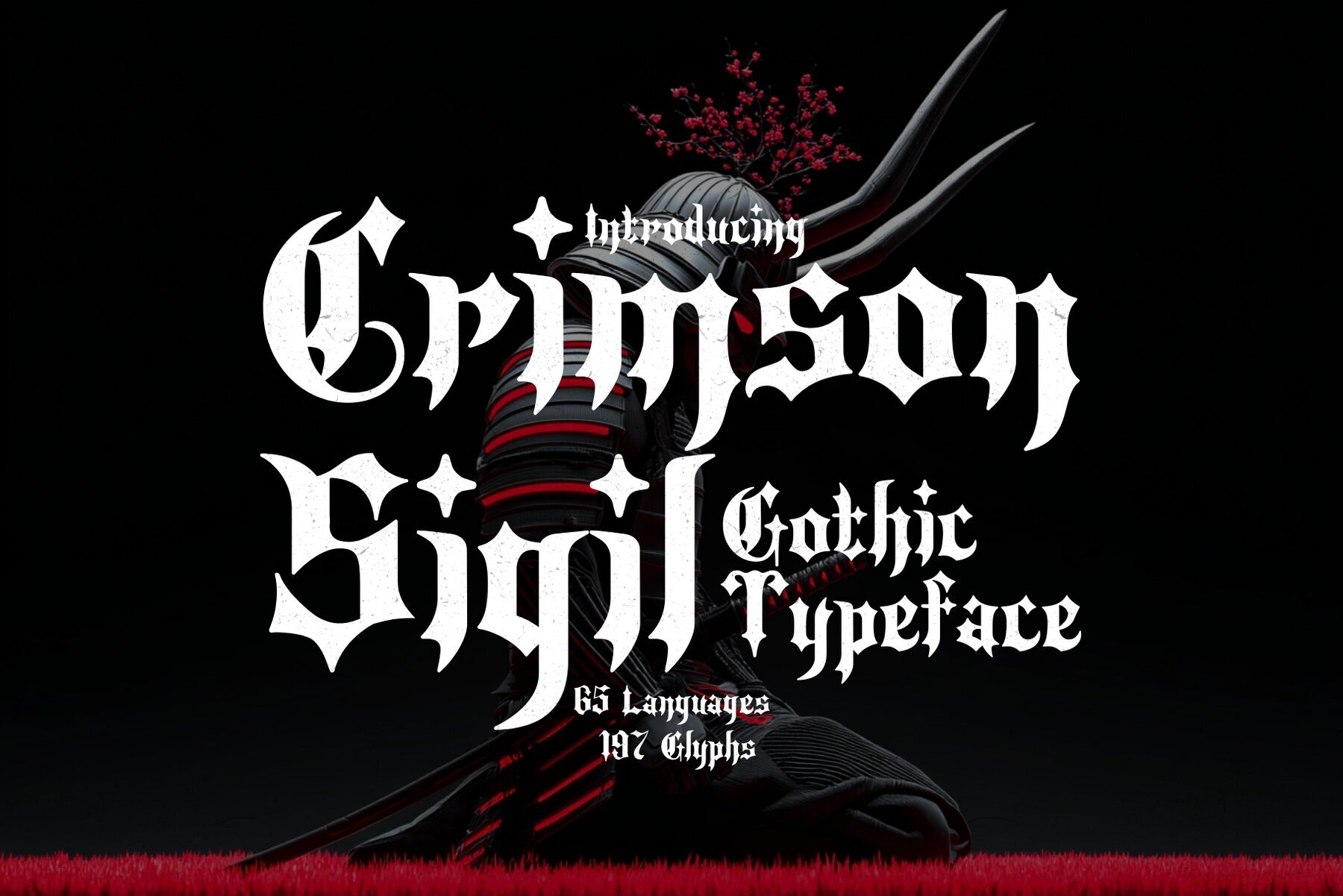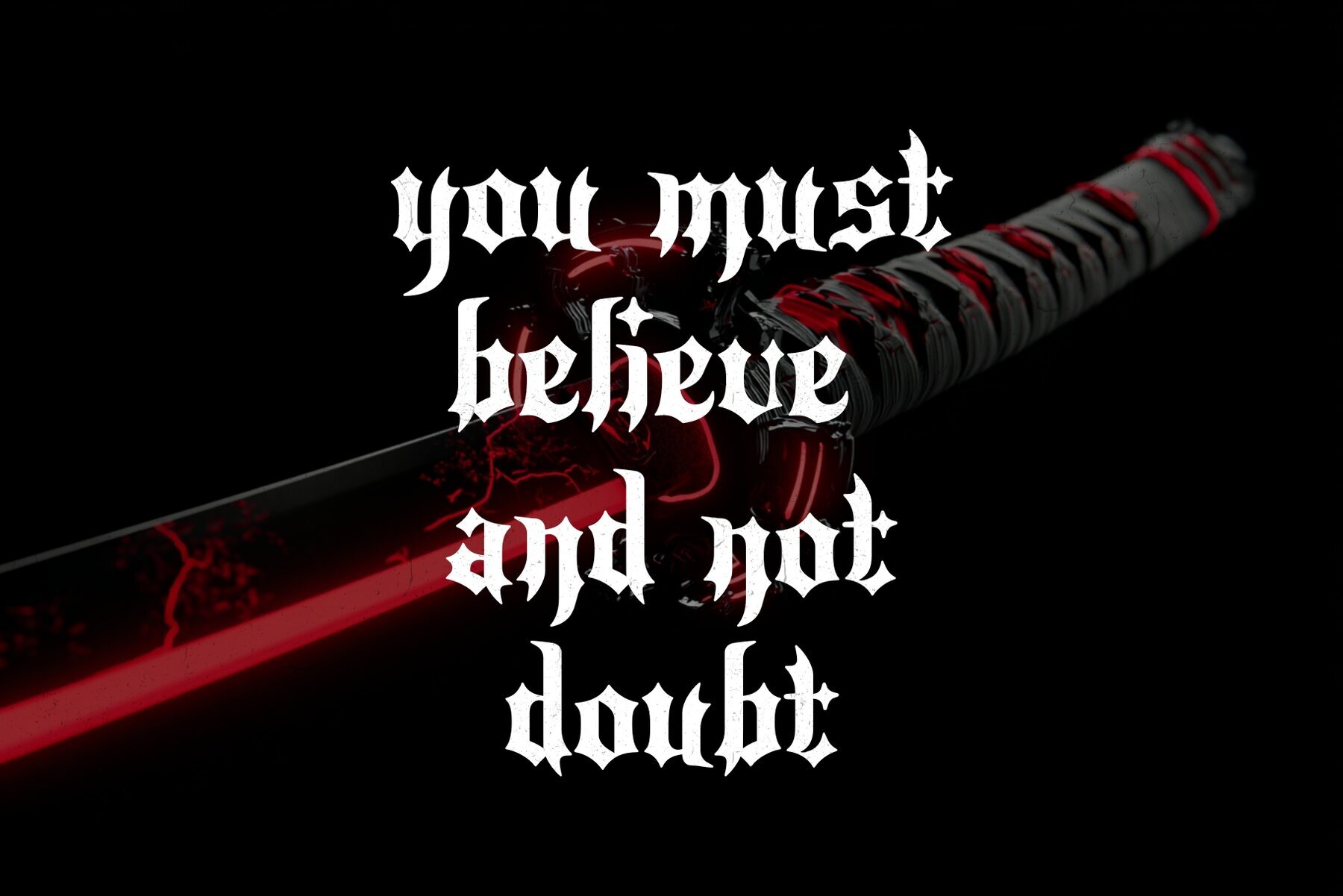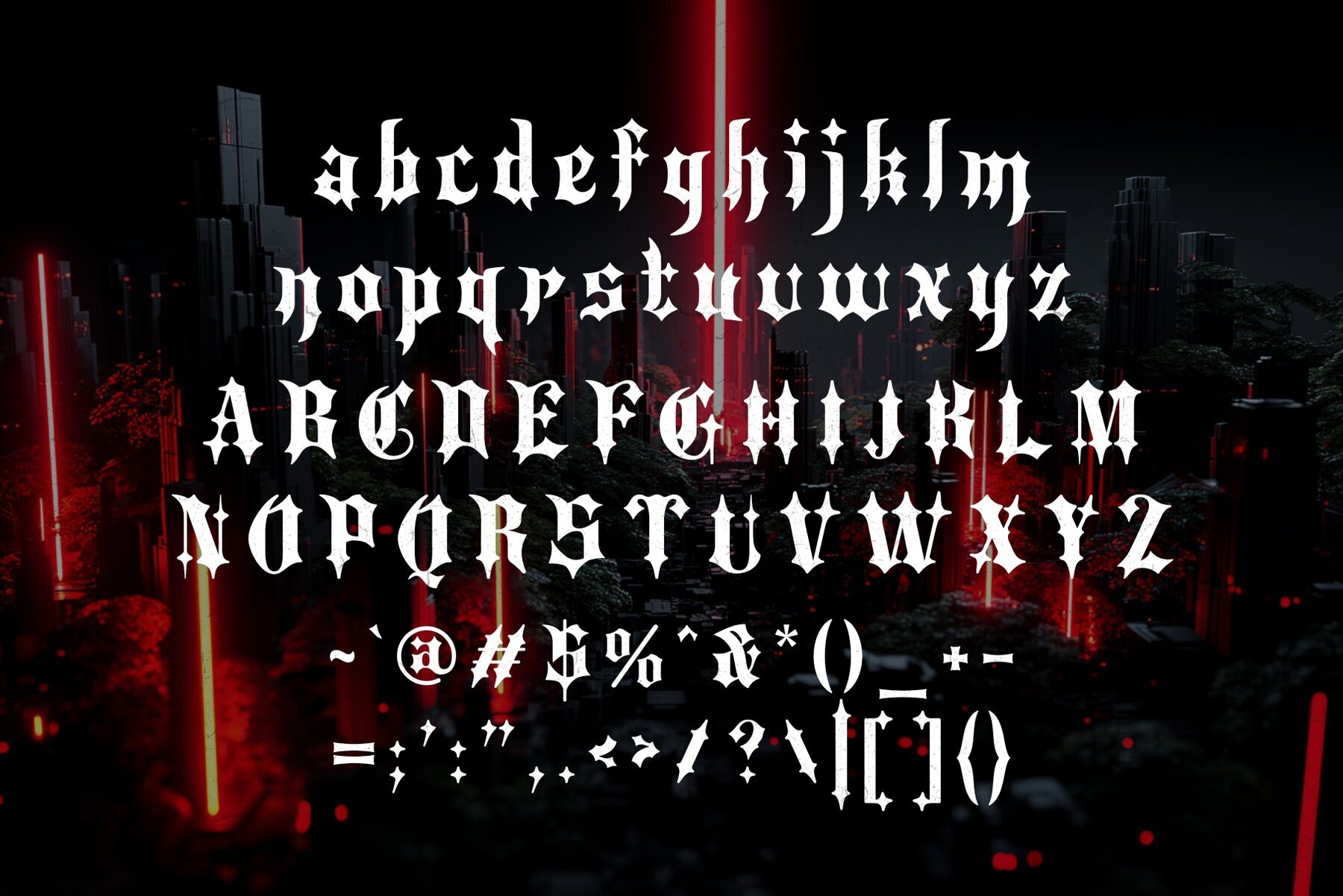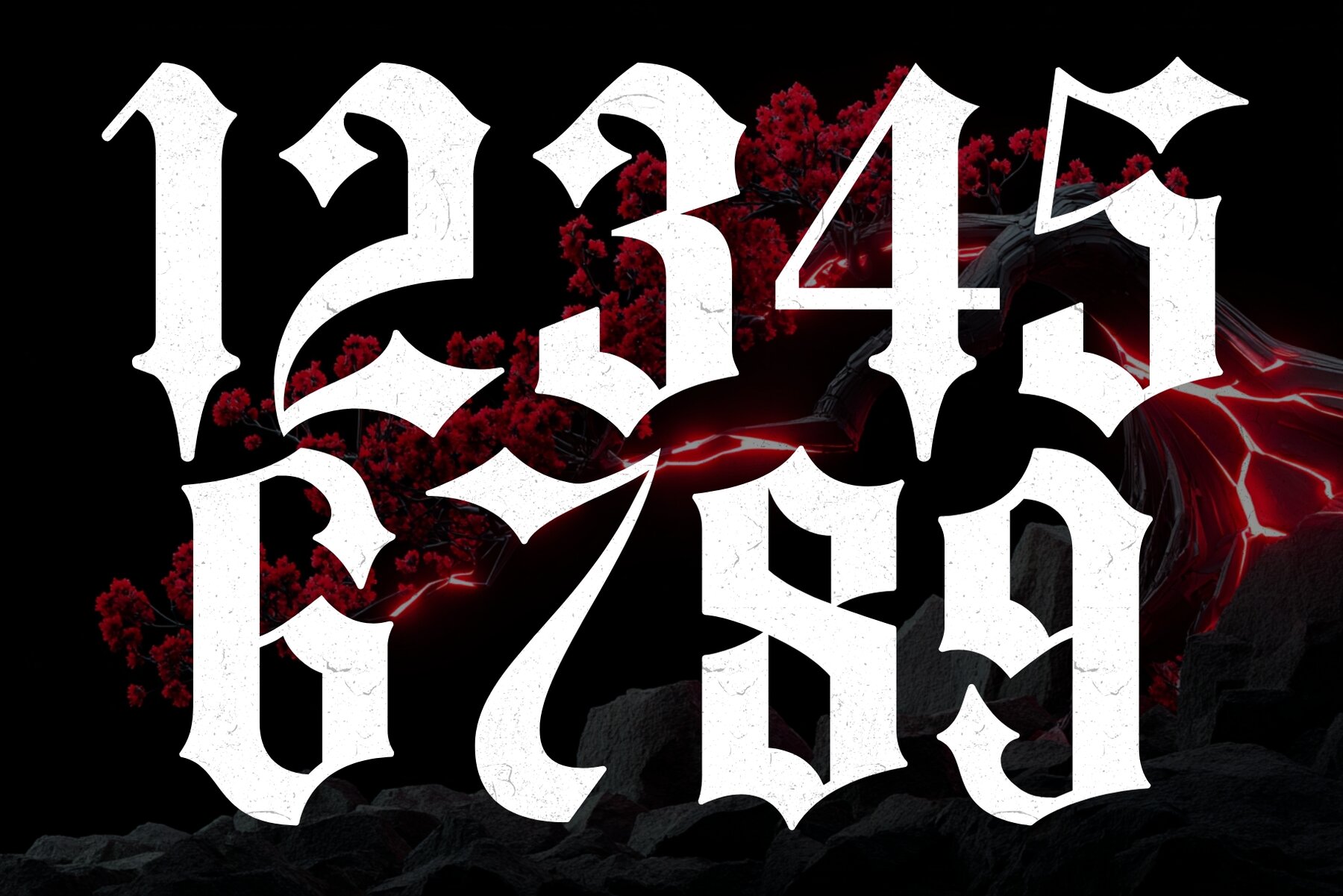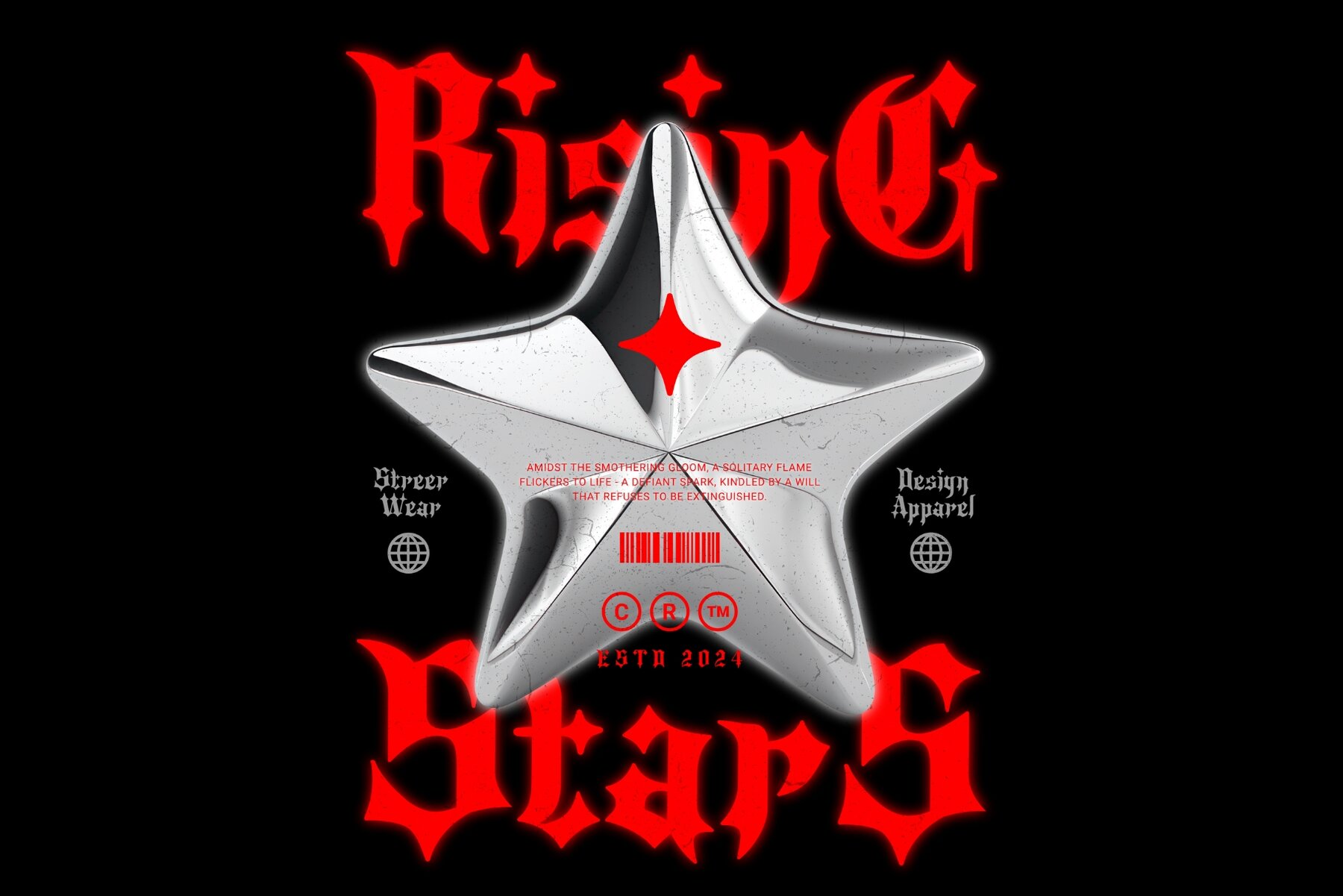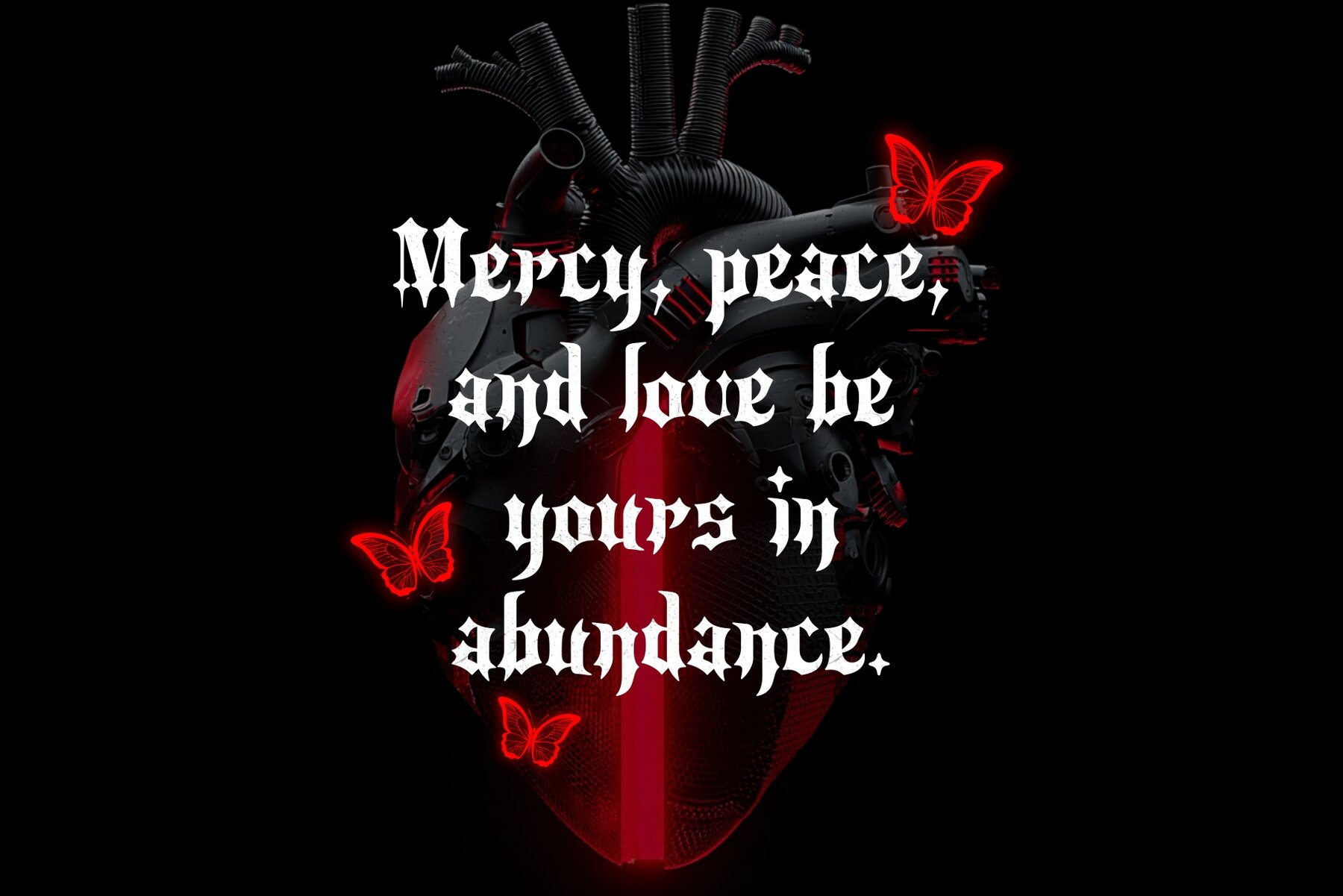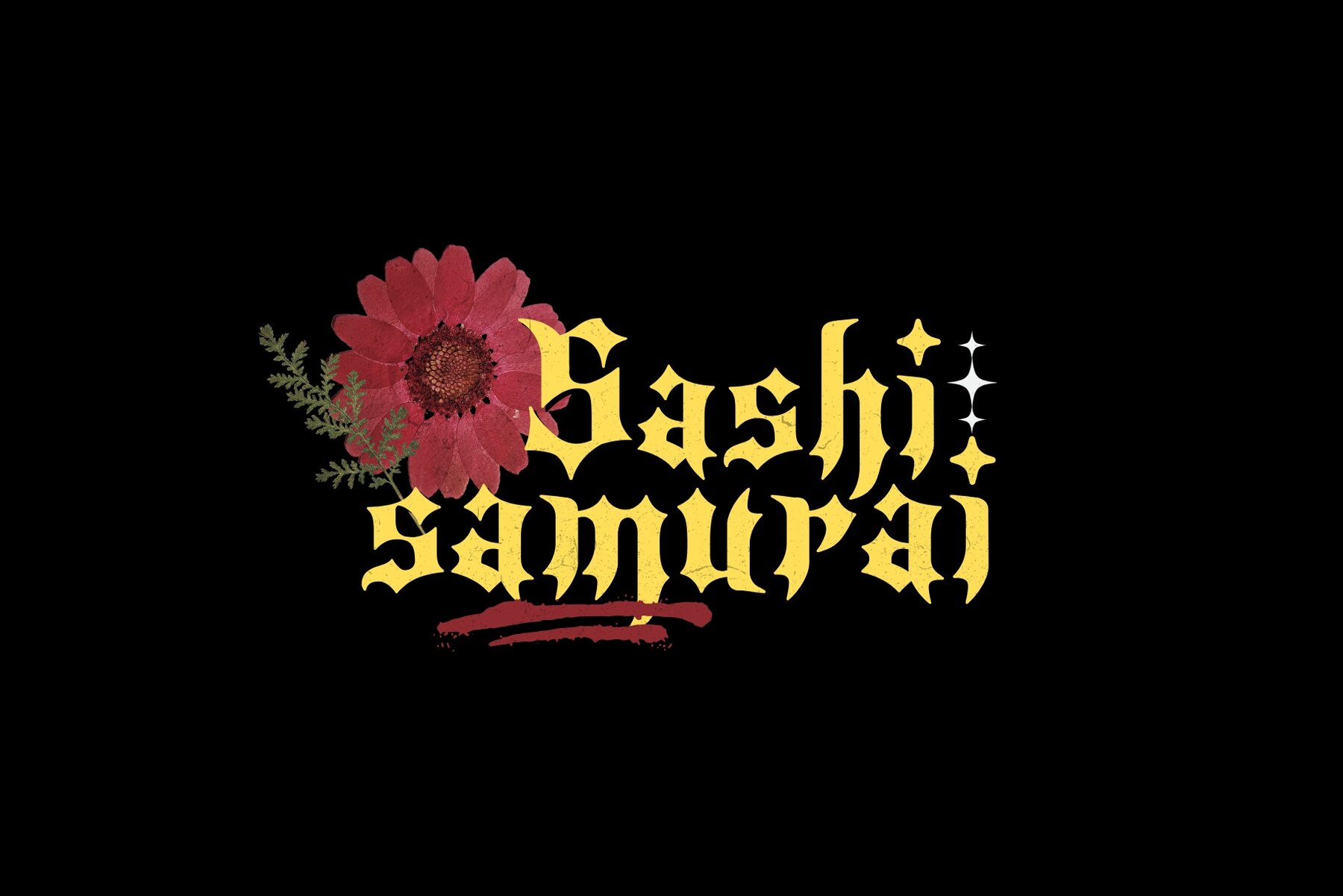
Crimson Sigil Font
Crimson Sigil
Step into a world of mysticism and medieval power with Crimson Sigil, a gothic blackletter typeface that commands attention. Razor-sharp serifs and dark, dramatic strokes create an aura of unyielding elegance. This font is reminiscent of sacred grimoires and enchanted manuscripts, offering a nod to the grandeur of ancient calligraphy. Whether crafting album covers, fantasy novels, or branding for dark artisan goods, Crimson Sigil brings an irresistible visual impact. Its bold letterforms combine beauty with strength, offering an ornamental yet legible style that is both fierce and refined.Crimson Sigil: Enchant Your Designs